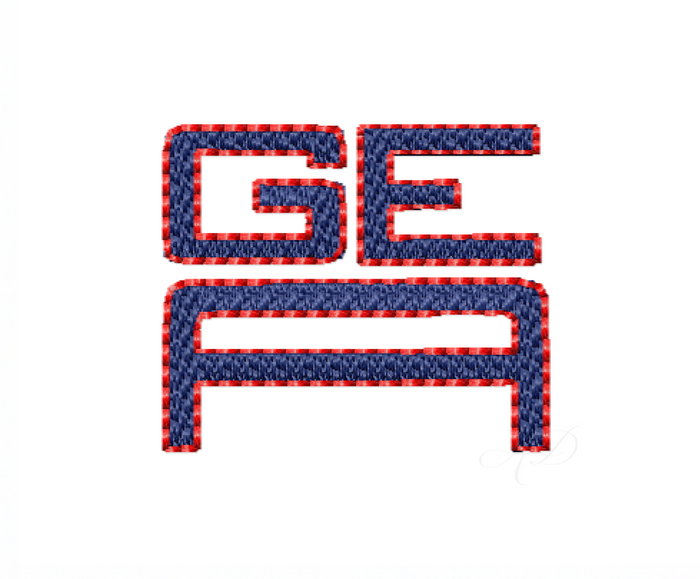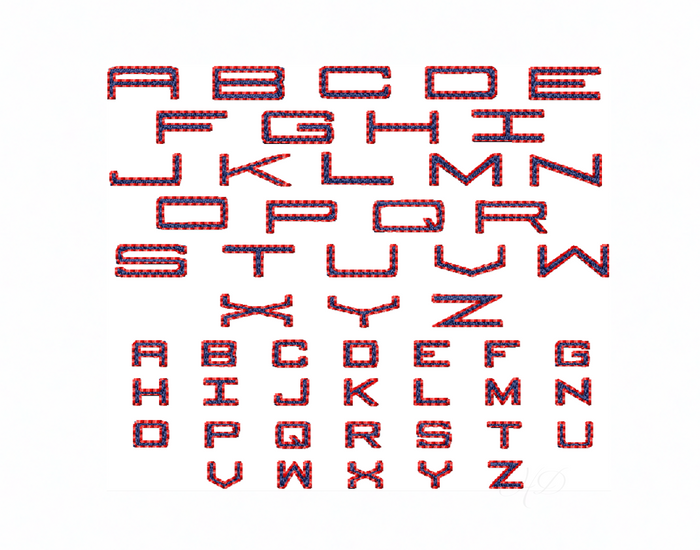
Small Square Fill Embroidery Font
Unlock your creativity with the Small Square Fill Embroidery Font. This versatile two-color embroidery font features exquisite fill stitches paired with contrasting outline stitches, making it perfect for personalizing your projects. Ideal for crafters and DIY enthusiasts, this font allows you to create stunning monograms and embellishments that stand out.